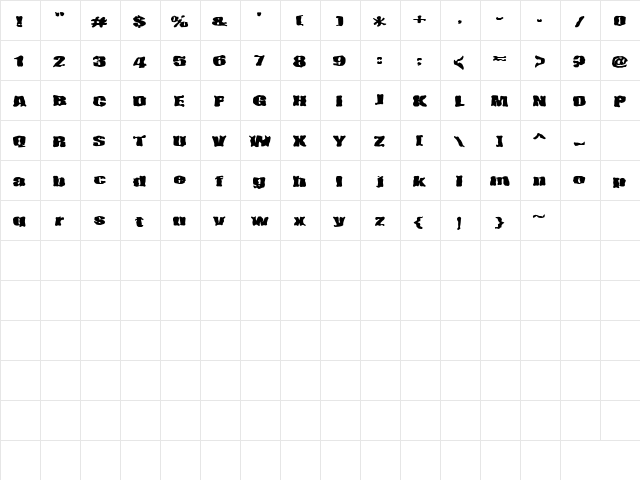
D3 Ghostism-Regular Regular
Design Context for D3 Ghostism-Regular Typeface
D3 Ghostism-Regular is a composed and adaptable typeface that performs quietly and consistently across a wide range of design contexts.